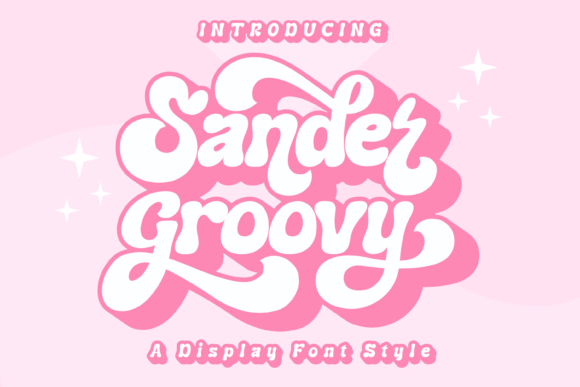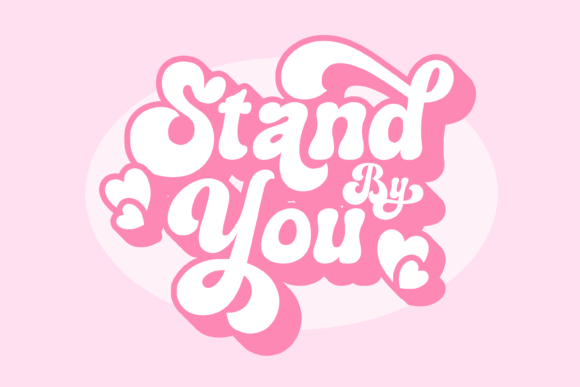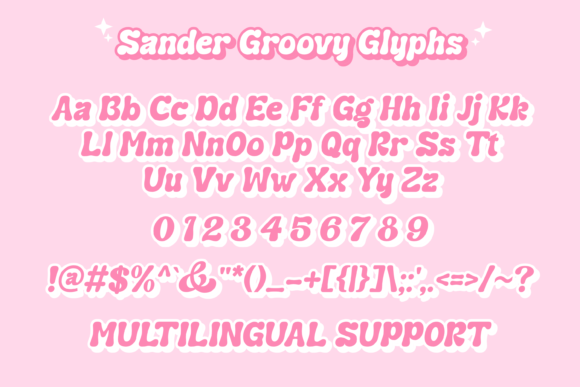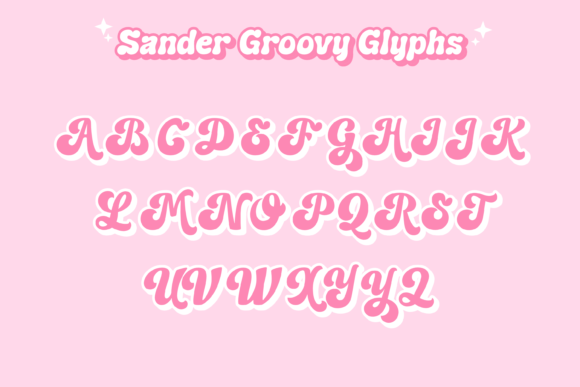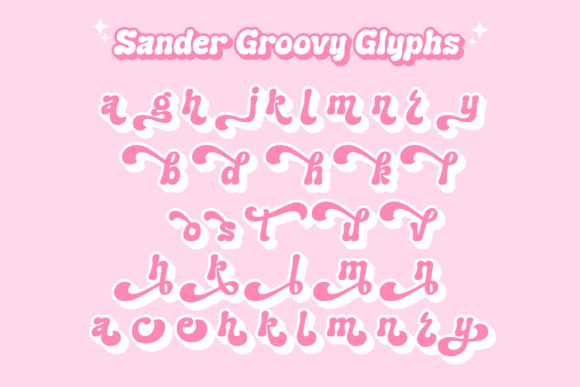
Introduction to Sander Groovy Font
Have you ever stared at a blank design project, feeling stuck and uninspired? You’ve got an idea, but it’s just not quite coming together. That’s when I turn to my trusty design resources, and I’m excited to share one of my favorites with you: the Sander Groovy Font.
This playful, cute, and fun display font is perfect for adding a touch of whimsy to your creative project. With its high quality design and PUA encoding, you’ll be able to access all of the glyphs and alternates with ease, making it a valuable resource for any designer. Whether you’re working on a T-shirt design, a magazine headline, or a logo, the Sander Groovy Font is sure to bring a smile to your face and a touch of creativity to your project.
Key Features of Sander Groovy Font
- The Sander Groovy Font comes in a single weight, offering a consistent aesthetic for your creative project.
- The unique, hand-drawn style of the Sander Groovy Font adds a touch of personality to any design, making it a valuable design resource.
Honest Review: Sander Groovy Font
I recently had the chance to work with the Sander Groovy Font, and I must say it’s a fantastic addition to any creative project. With a high quality design, this font is sure to elevate your work.
One of the standout features of the Sander Groovy Font is its unique and fun design. It’s perfect for any project where you want to add a bit of personality and flair. The font is available as a free download, which is always a bonus for designers on a budget.
- Unique and fun design that adds personality to any project
- High quality design that is sure to elevate your work
- The Sander Groovy Font may not be suitable for all types of projects, such as formal or professional ones
Overall, I’m very impressed with the Sander Groovy Font. It’s a great design resource that is sure to add a bit of fun and personality to any project. Just be sure to check the limitations before using it in your next creative project.
Tips for Getting the Most Out of Sander Groovy Font
To get the most out of Sander Groovy Font, experiment with different font sizes, colors, and combinations to create a unique design. You can also use the font’s transparent background feature to create a seamless design.
Common Use Cases for Sander Groovy Font
The Sander Groovy Font is commonly used for creative projects, such as designing logos, brochures, and presentations. Its high quality and transparent background feature make it an ideal design resource for designers and non-designers alike.